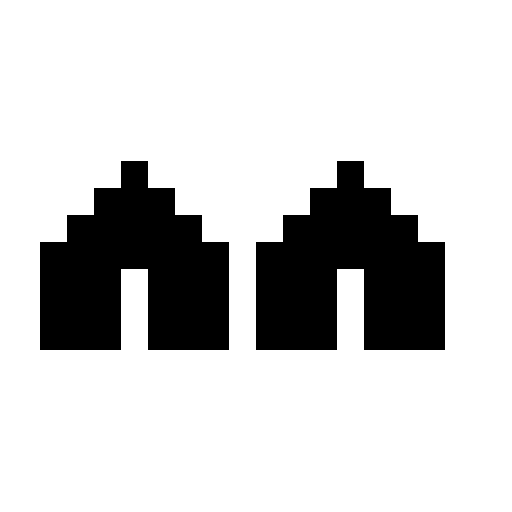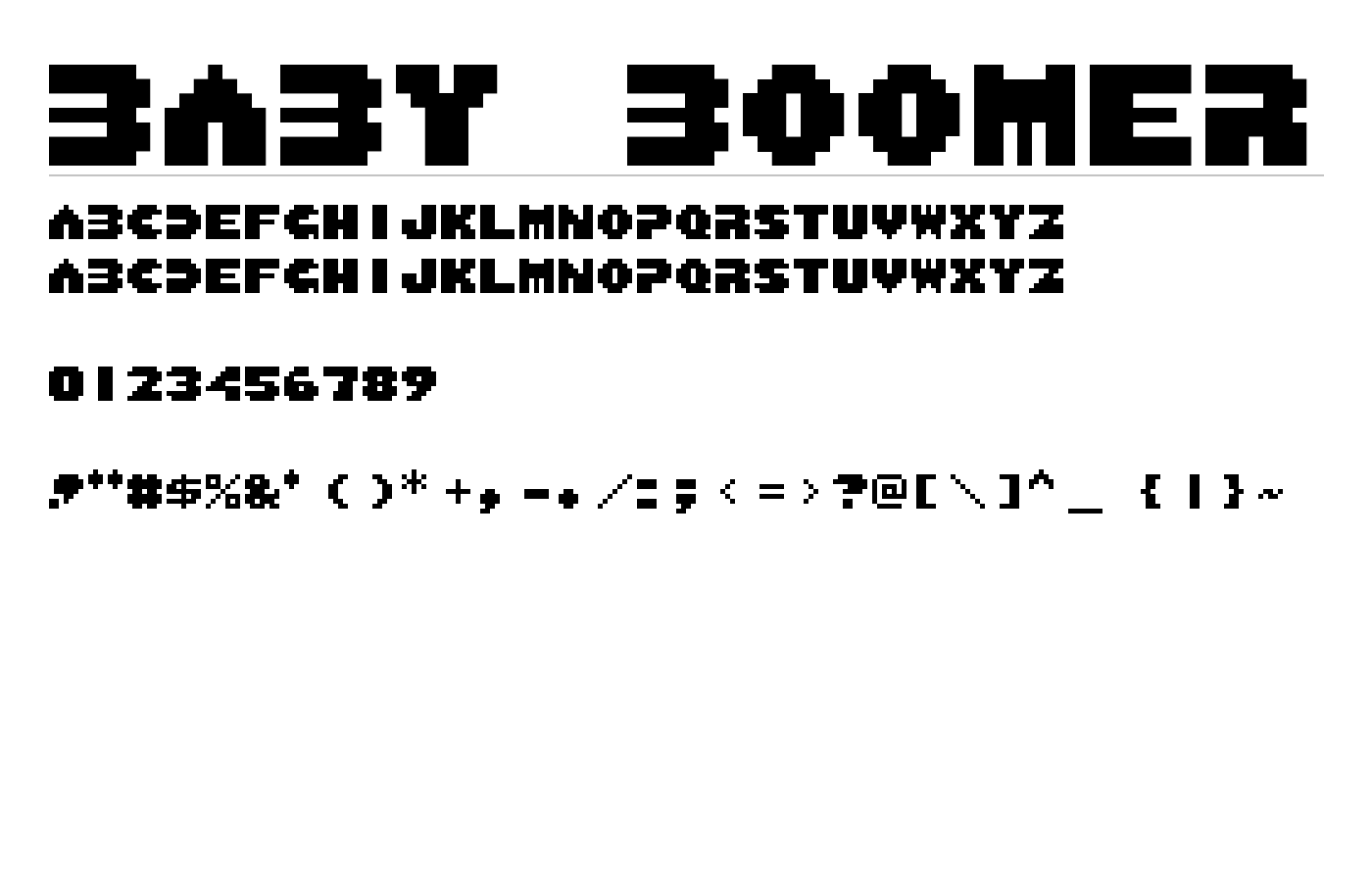
Baby Boomer is a bold, pixelated sans serif font with a distinctive retro video game aesthetic, featuring blocky, geometric letterforms and a uniform stroke weight. Its strong, condensed shapes and high x-height give it a striking, digital feel that’s perfect for designs aiming to evoke 1980s nostalgia, tech themes, or playful, vintage vibes. This font works best in headlines, logos, and posters where a bold, eye-catching style is needed to make a memorable impact.
Baby Boomer Font
About Baby Boomer Font